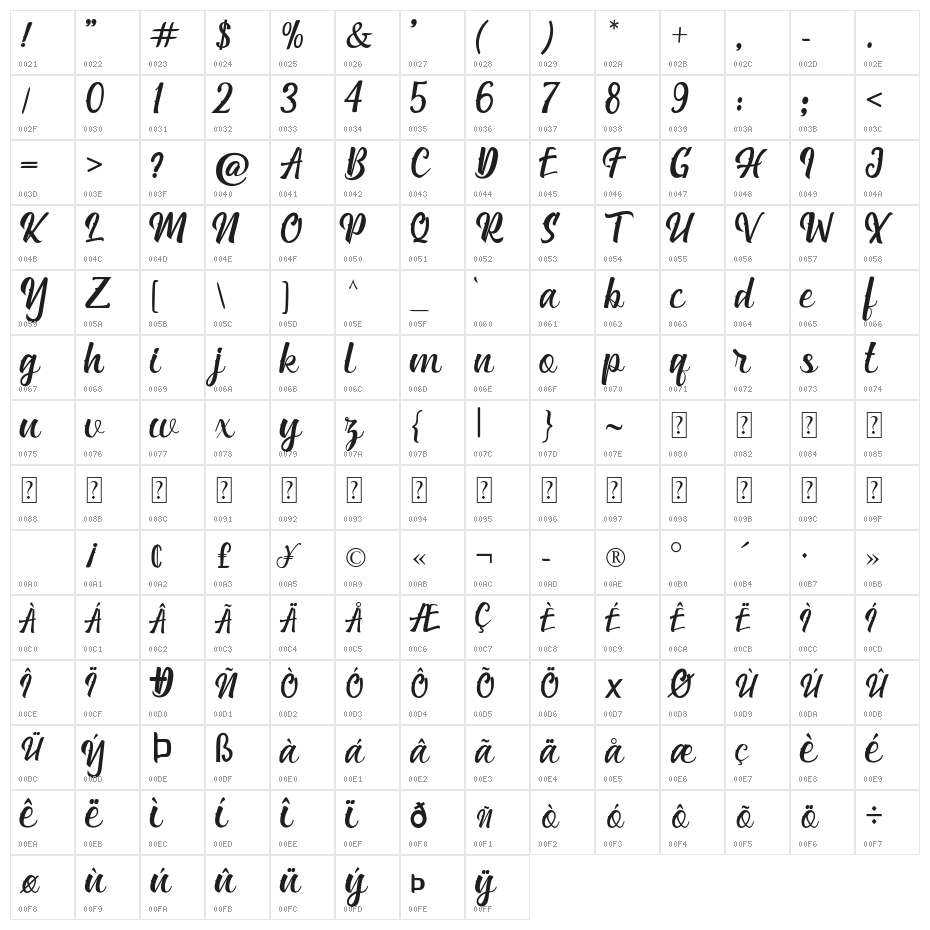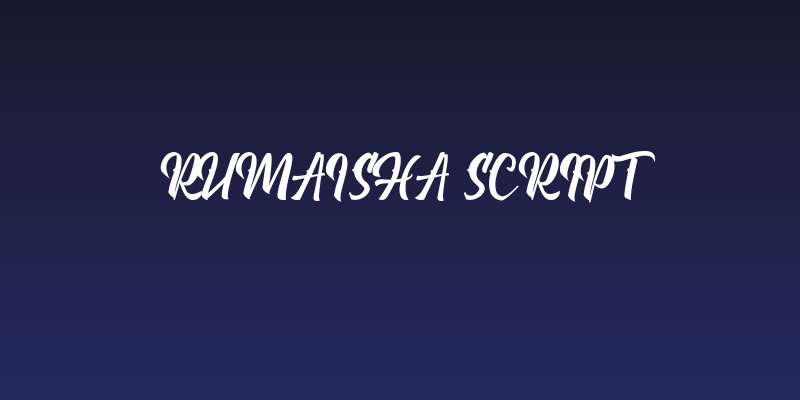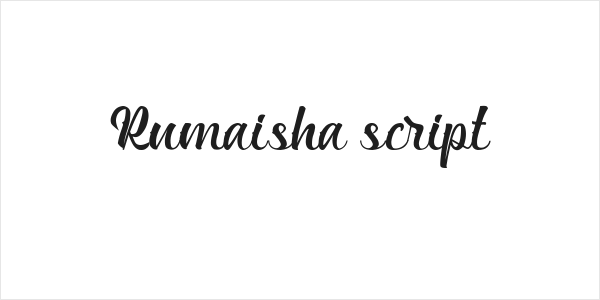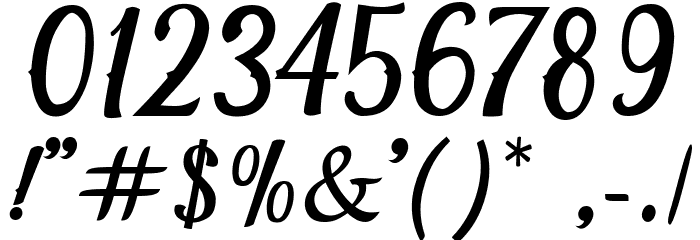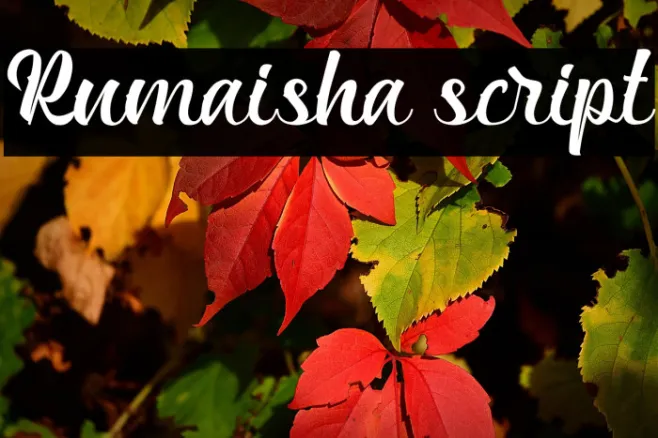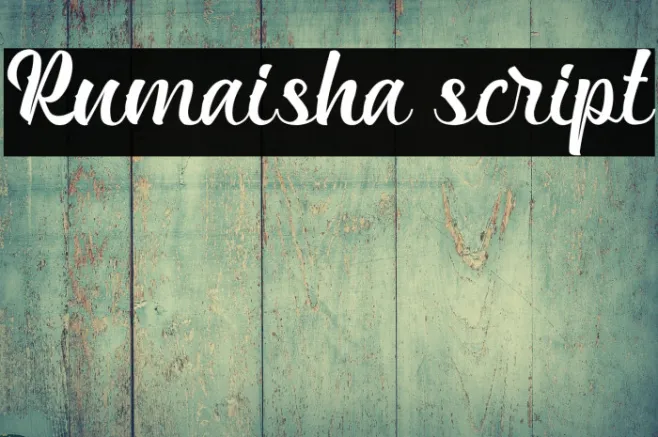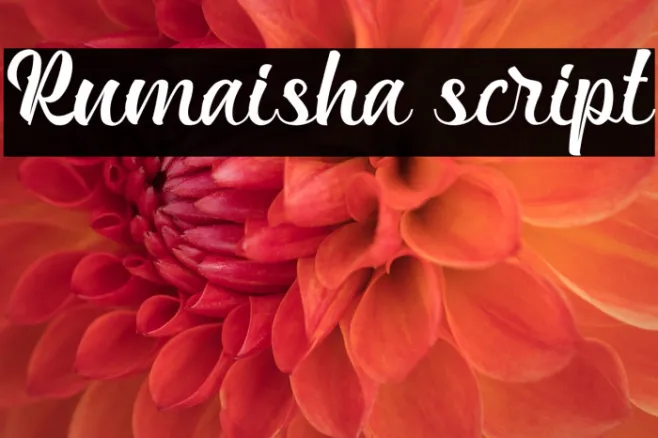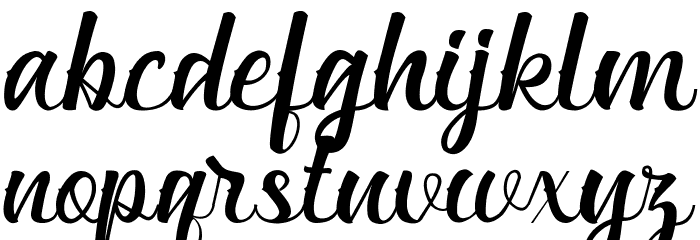
Rumaisha script Font
Rumaisha script Description
This script font exudes elegance and fluidity, characterized by its smooth, flowing strokes and cursive style. The uppercase letters are bold and slightly slanted, giving a sense of movement and grace. The lowercase letters maintain a consistent flow, with some characters featuring distinctive loops and swirls that add a touch of sophistication. The numerals are clear and well-defined, complementing the overall style. Special characters are creatively designed, maintaining the font's artistic flair. This font is perfect for projects that require a personal, handwritten touch, such as invitations, greeting cards, or branding materials.
| Proposed Projects | Ideal for wedding invitations, greeting cards, personal branding, and elegant logos. |